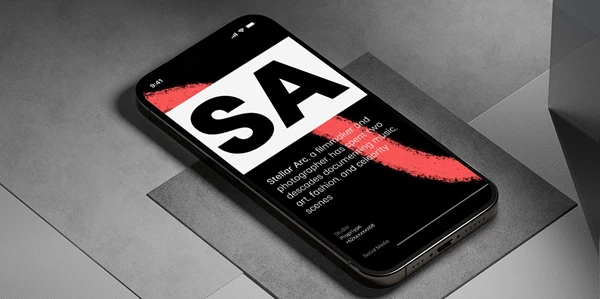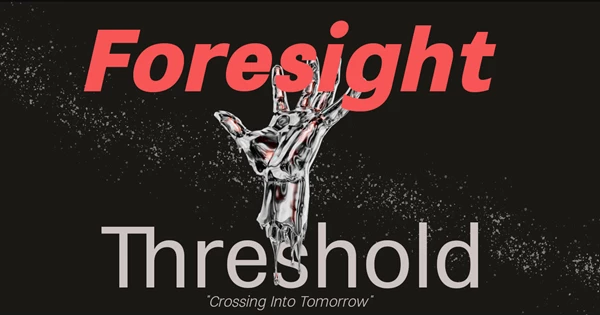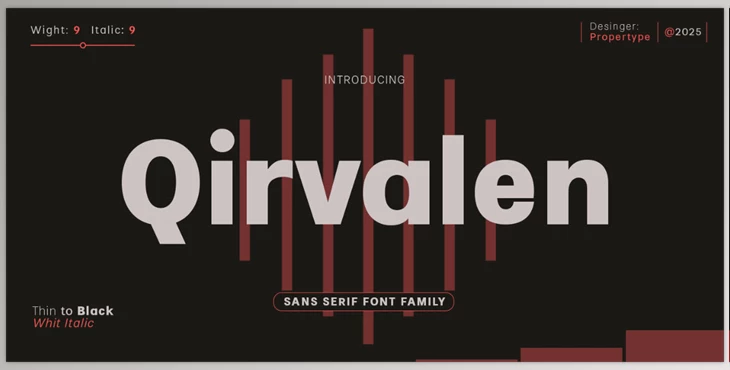
The Qirvalen Font Family is a modern, stylish serif with tons of charm and utility. It comes as a variable font ranging from Light to Extra Bold with a comfortably broad spectrum of weights in between. This characteristic creates an inviting presence for more graceful applications as well as a professional tone when required. A font family that supports over 200 Latin-based languages, Qirvalen is truly a global solution.
With a large character set and versatile nature, the Qirvalen Font Family is great for many design solutions. From editorial settings to captivating headlines, branding, and logo applications, this font family is hard to pass up. It's great for packaging, magazine covers, ad campaigns, and even short and long copy. This font family is an excellent go-to for any designer.